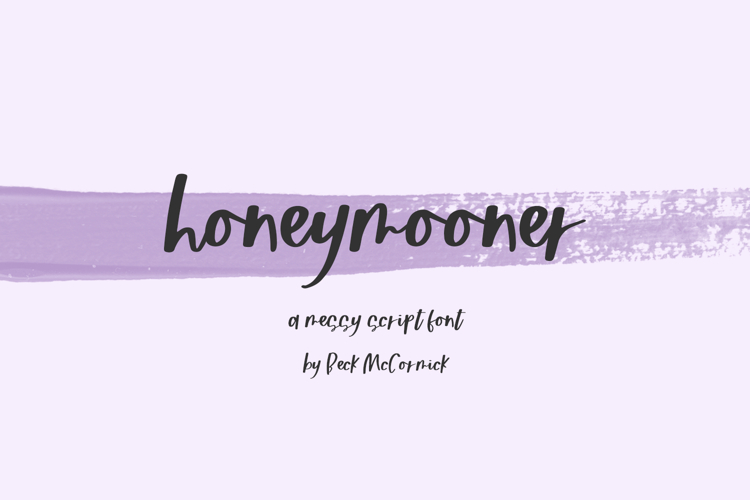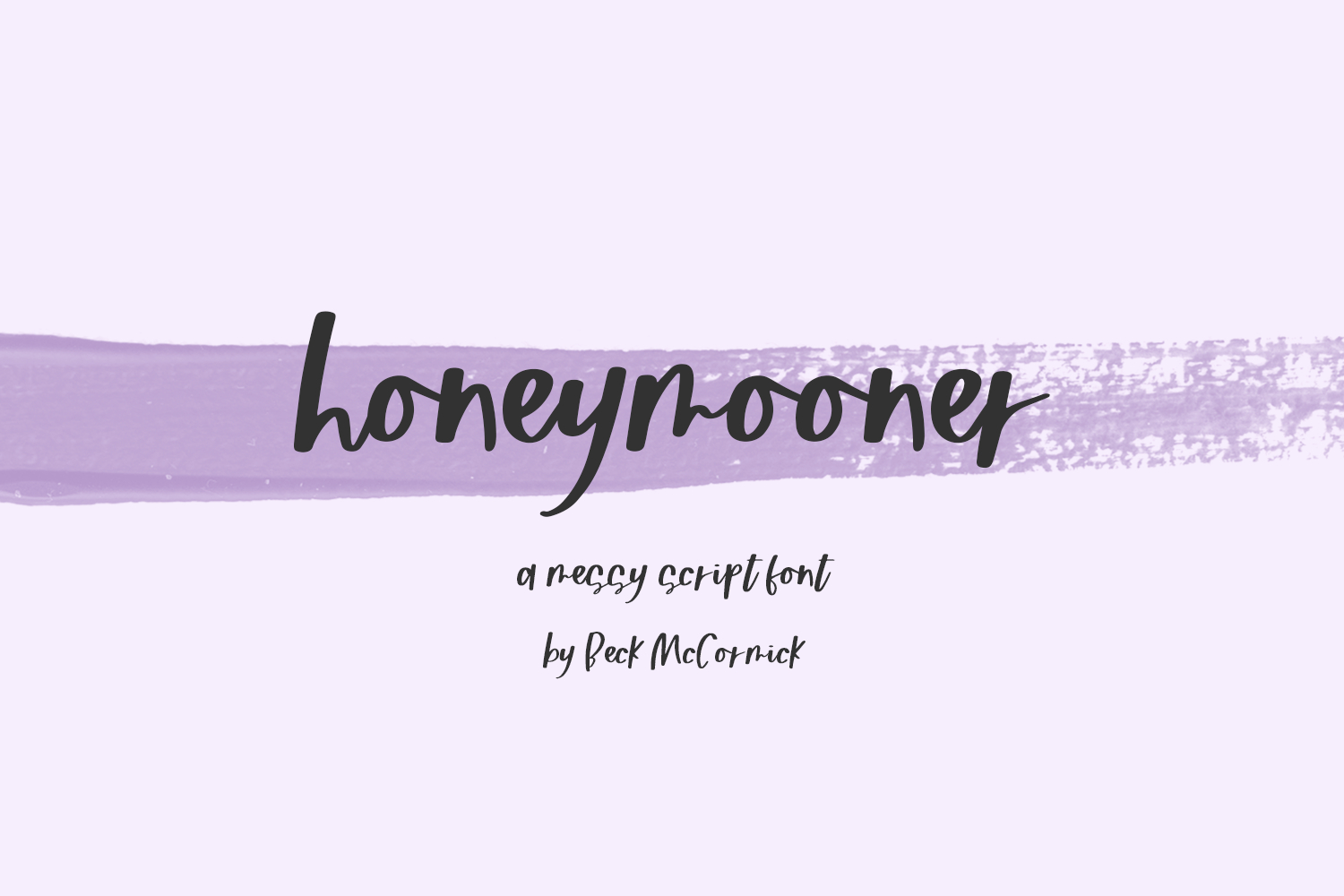
Honeymooner Script
Say hello to Honeymooner Script. Honeymooner is a slightly leaning modern calligraphy font. It’s a little messy, lending itself to a truly handwritten look & feel. Its contemporary aesthetic makes it a perfect fit for effortlessly designing logos & branding, elegant paper products like wedding invitation suites, or for displaying content on your website. Honeymooner can also be used for other print design like magazines and flyers or printed marketing materials. This font can also be used for digital marketing materials and social media items!